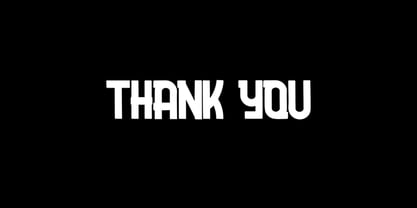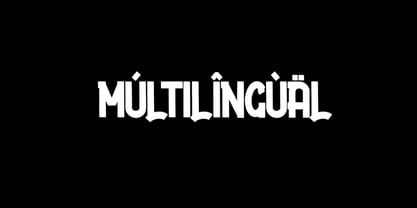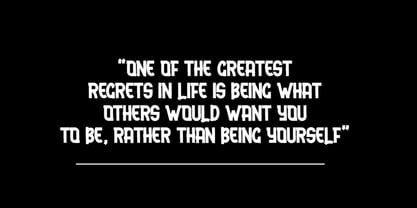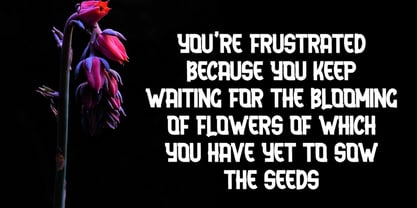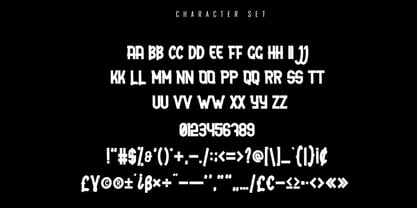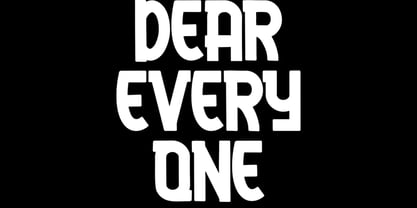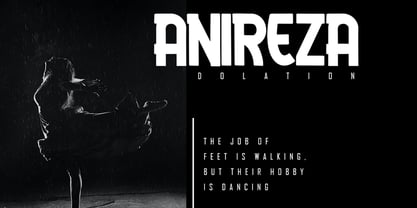
Arena Sky
by Skiiller Studio
The Arena Sky Font Family was designed by Irfan Mahmudin and published by Skiiller Studio. Arena Sky contains 1 styles. More about this family
Arena Sky is a modern bold sans-serif font characterized by strong geometric forms and a futuristic visual identity. Its thick, confident strokes and distinctive letter shapes create a powerful presence, making it perfect for headlines, posters, sports branding, gaming titles, logos, and any project that requires an assertive, attention-grabbing display style. With its clean structure and contemporary character, Arena Sky offers a sharp, impactful appearance that enhances modern design concepts with bold energy. This font family includes various weights and styles, providing versatility for branding, web design, and editorial use, ensuring it meets diverse creative needs.
Designers: Irfan Mahmudin
Foundry: Skiiller Studio